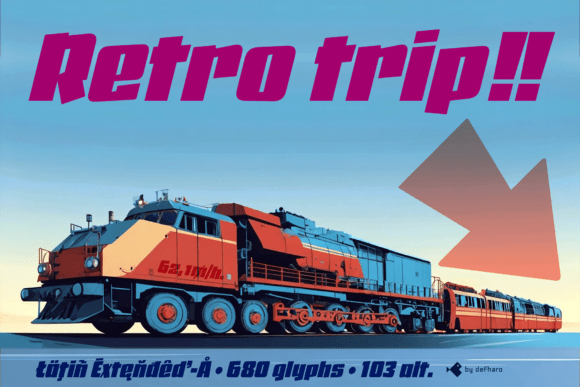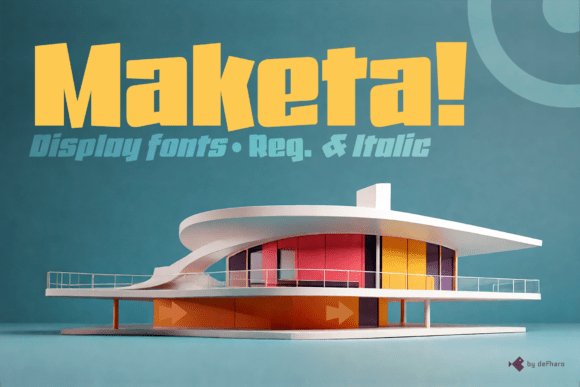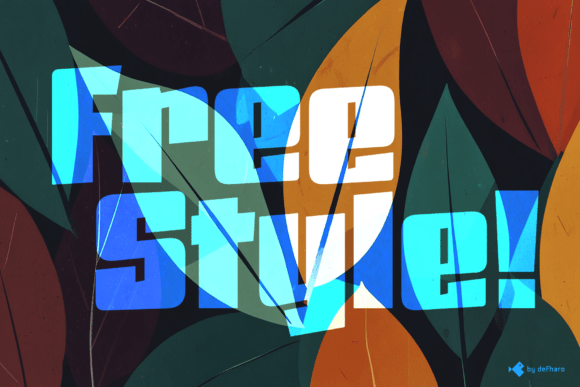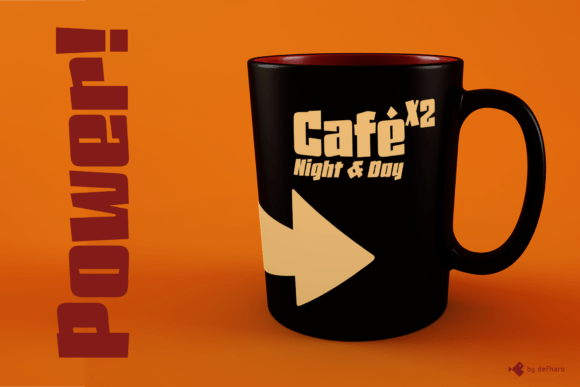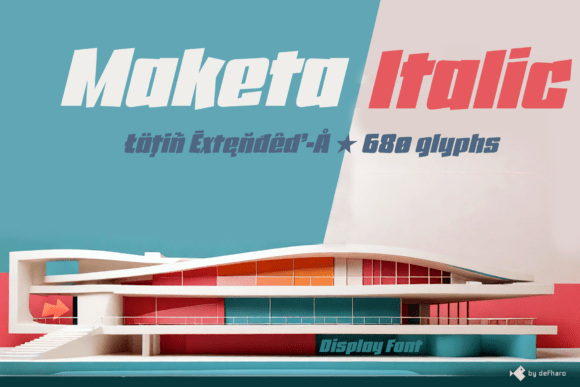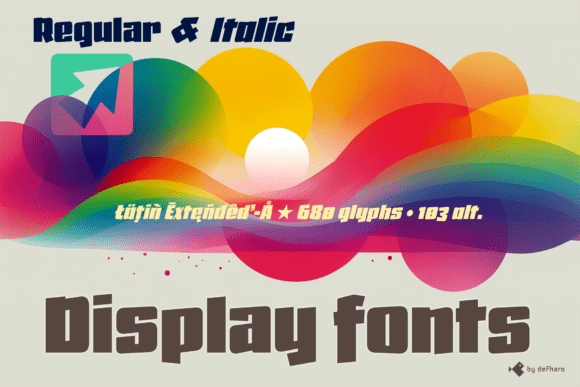
Introduction to Maketa Font
Maketa is a powerful and urban-inspired display typeface that commands attention with its bold, blocky structure and confident personality.
Designed for impactful headlines and striking visuals, it pairs perfectly with posters, sports branding, urban apparel, or any project that needs a strong, modern statement Available in both Regular and Italic styles, Maketa delivers versatility with punch.